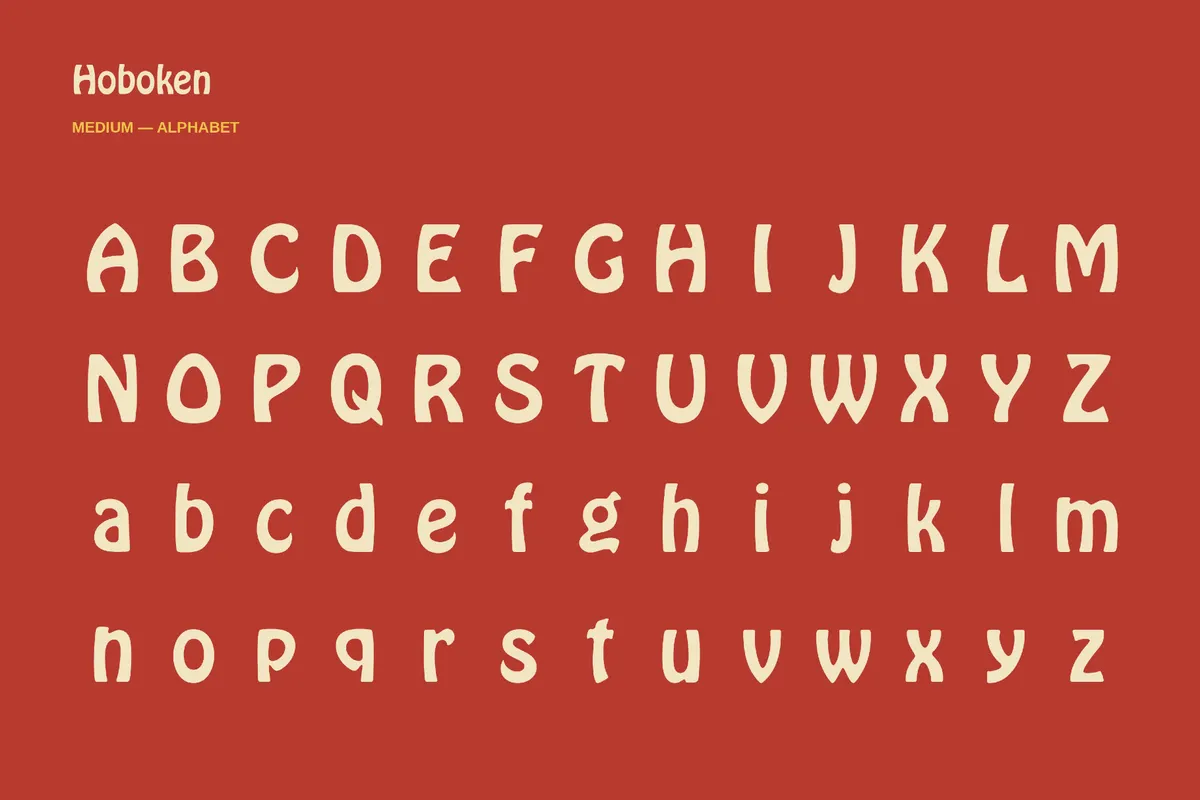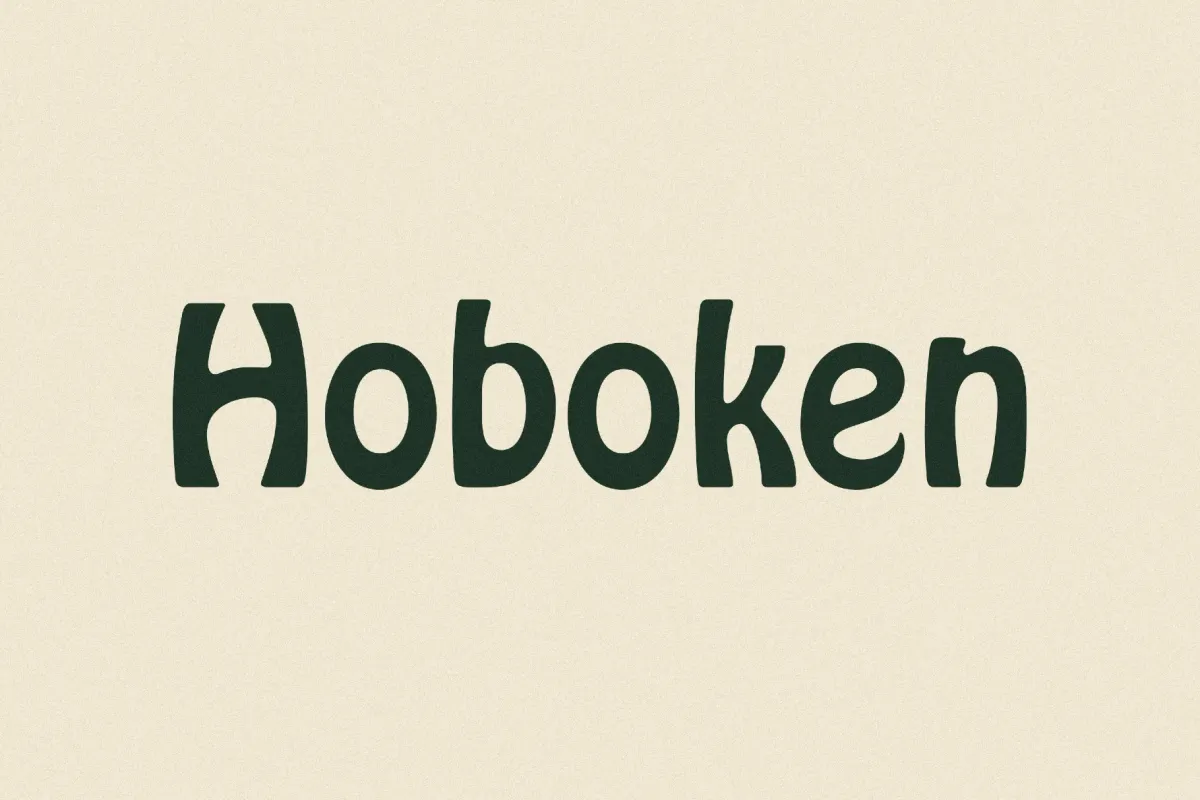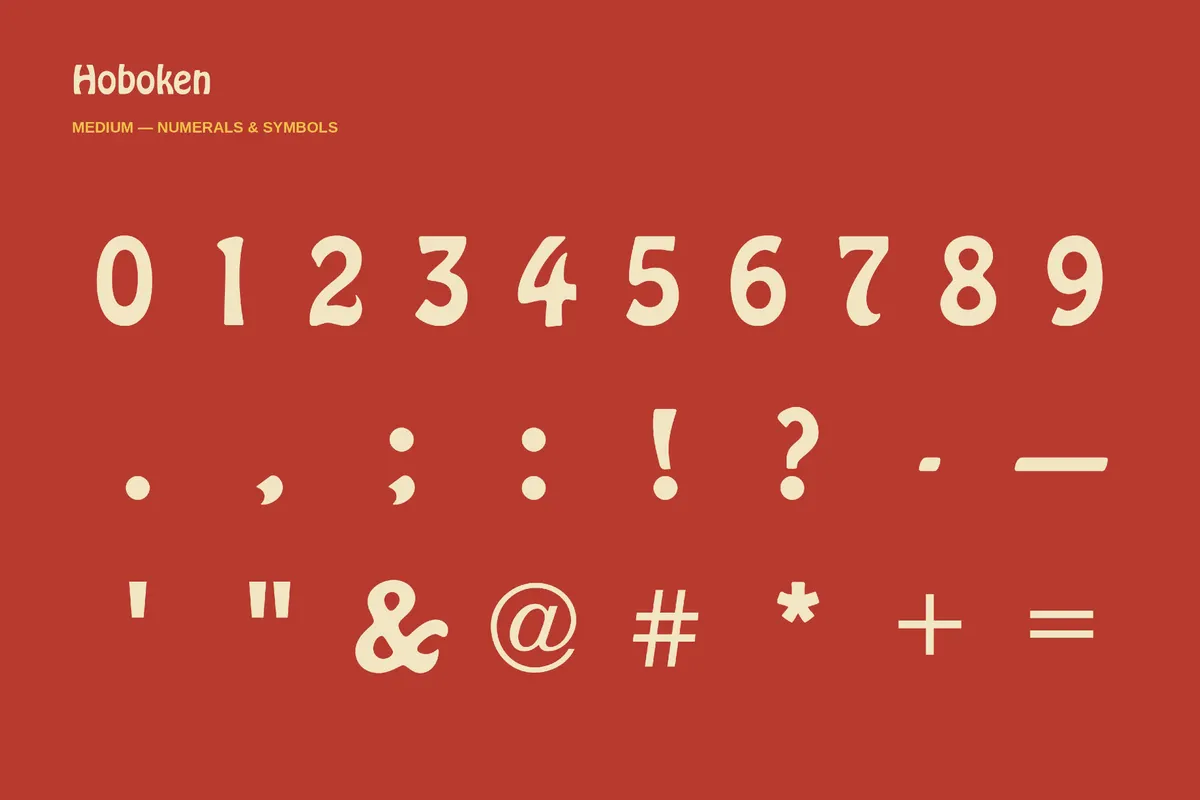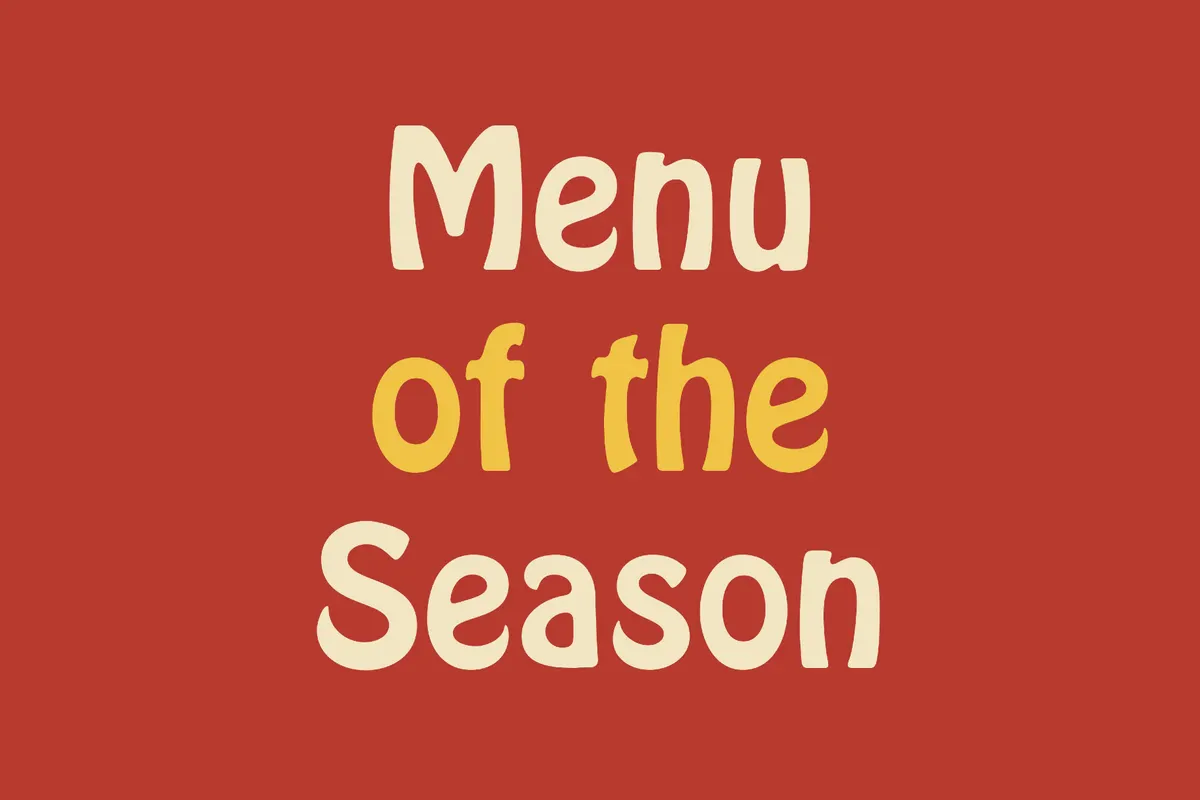
Hoboken - 70s Groovy Font
Quirky urban font Hoboken with rounded block forms and offbeat vintage charm recalls hand-painted shopfronts, subway posters, and mid-century neighborhood signage. You can play with its warm, memorable tone as you want: use it for local event posters, café identities, deli labels, editorial headlines, apparel graphics, record-store promos, food packaging, zines, merch designs, and social media artwork.
• uppercase and lowercase letters;
• numbers, punctuation, and symbols;
• multilingual support across the extended Latin script;
• ligatures.